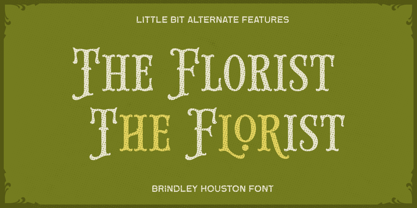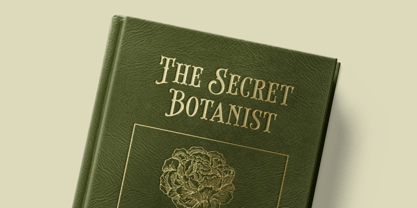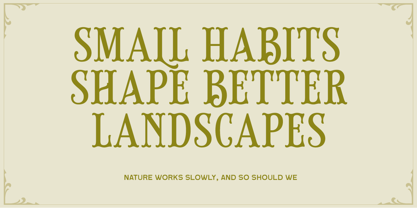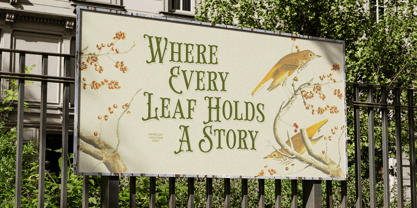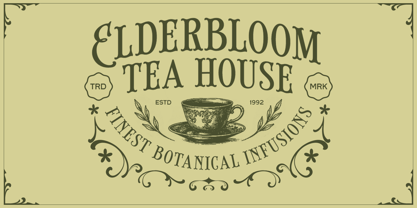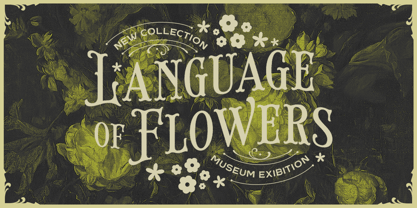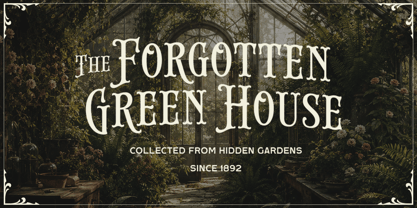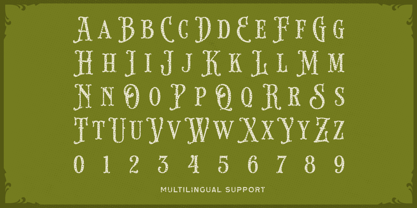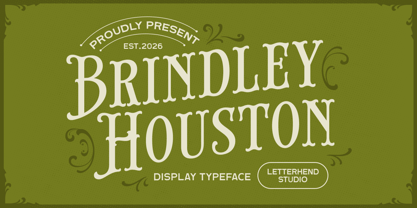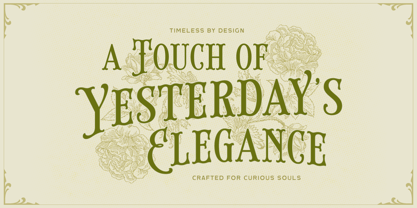
Brindley Houston
von Letterhend
Die Schriftfamilie Brindley Houston wurde von Hendry Juanda entworfen und von Letterhend veröffentlicht. Brindley Houston enthält 1 Stile. Mehr über diese Familie
Brindley Houston captures the quiet romance of vintage printmaking with a graceful serif style that feels both refined and inviting. Inspired by antique botanical books, heritage storefronts, and classic editorial lettering, its softly sculpted curves, subtle decorative terminals, and old-world proportions create a timeless atmosphere without feeling overly ornate.
Designer: Hendry Juanda
Foundry: Letterhend